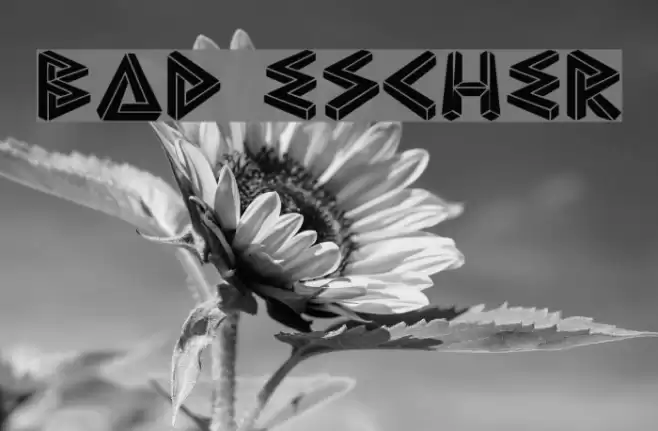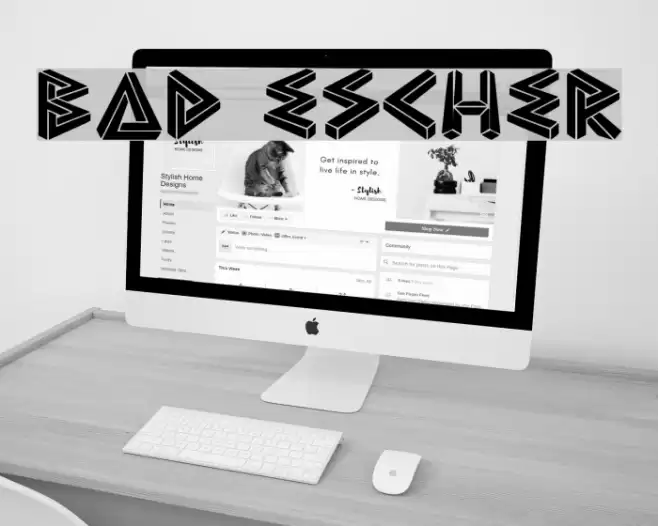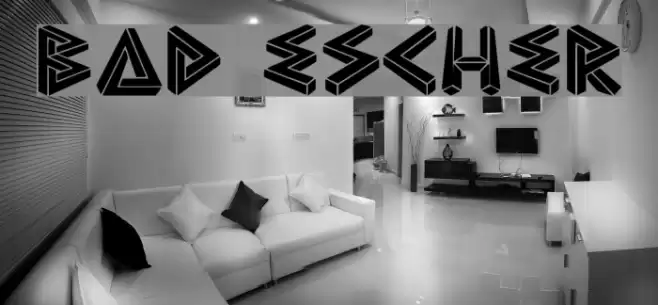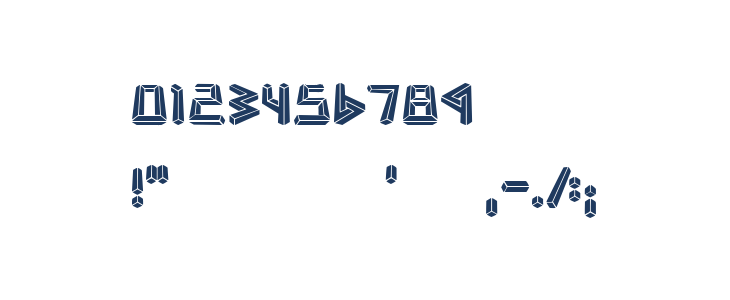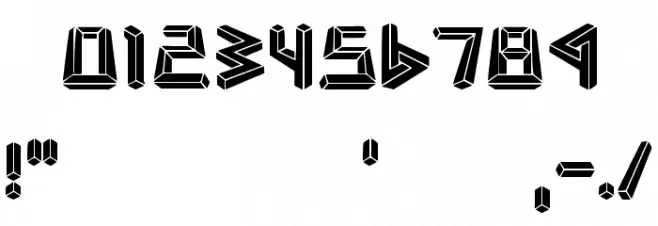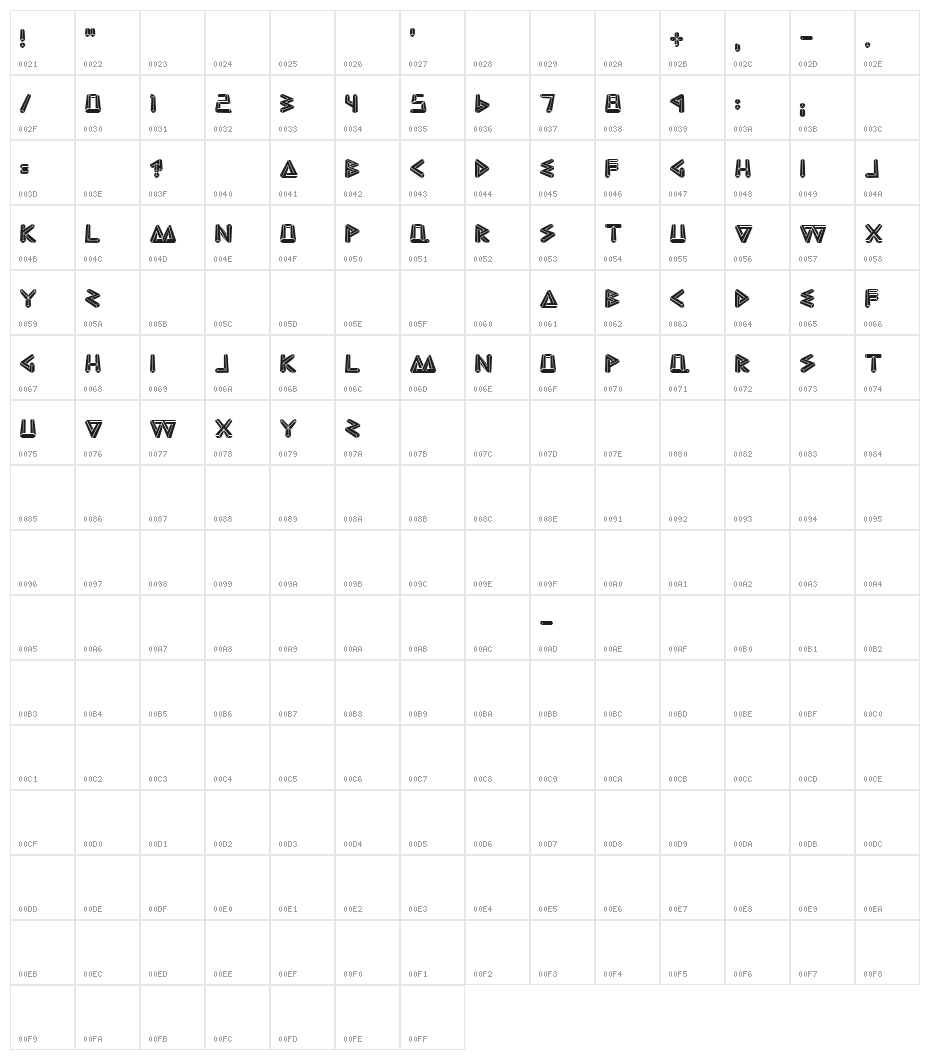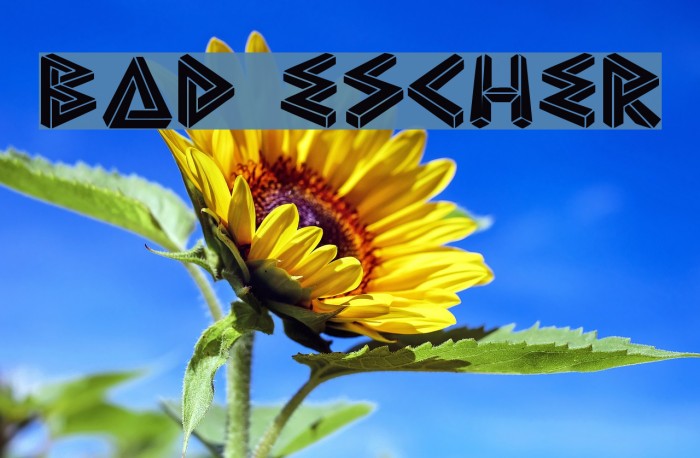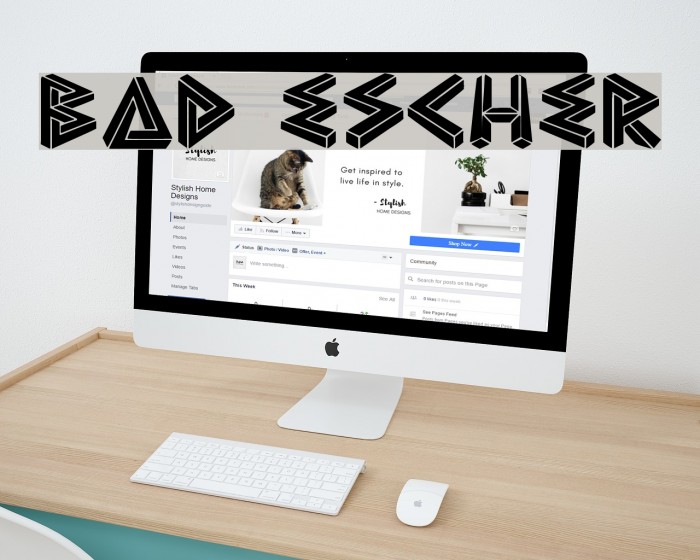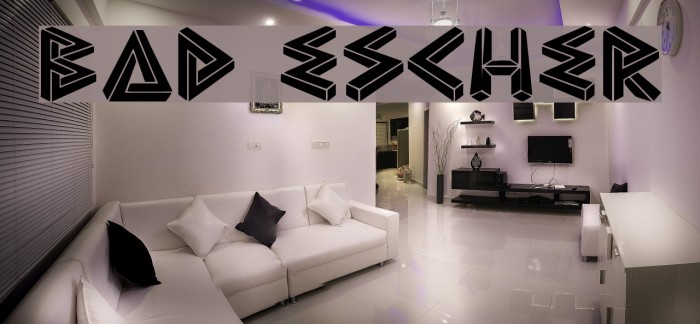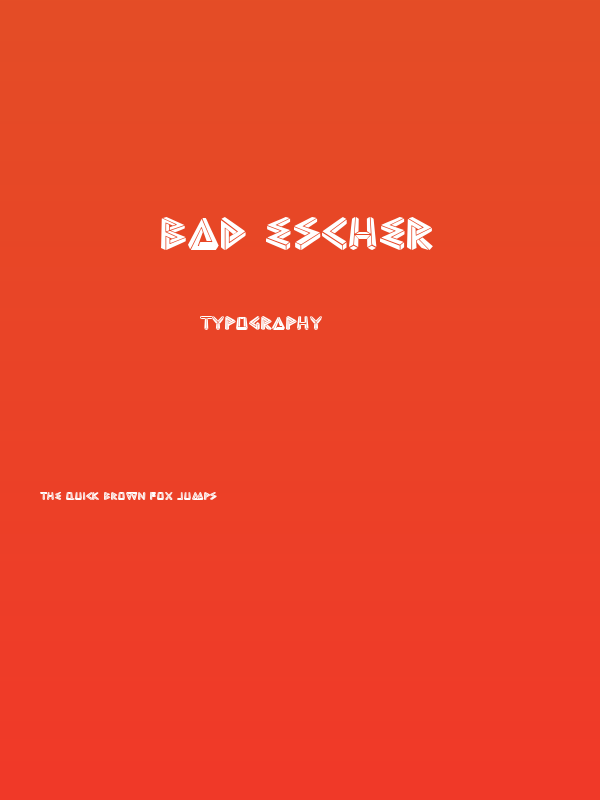
Bad Escher Font
Bad Escher Description
This font features a bold, geometric design with a three-dimensional effect, reminiscent of optical illusions. Each character is constructed with sharp angles and thick lines, creating a sense of depth and complexity. The use of negative space is prominent, enhancing the illusion of three-dimensionality. The uppercase and lowercase letters maintain a consistent style, with the numbers and special characters following suit. The overall appearance is striking and modern, making it suitable for attention-grabbing designs.
A bold, geometric font with a three-dimensional, optical illusion style from Uncategorized fonts.
- Proposed Projects: Ideal for posters, album covers, branding projects, and any design requiring a bold, eye-catching typeface.
- Overall Style: Modern, Decorative